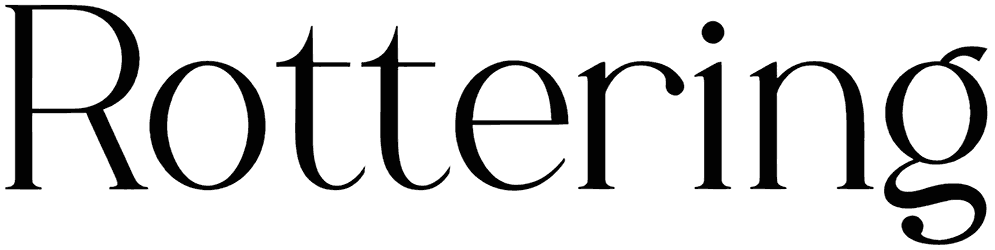
Rottering Font
Have you noticed that you can never say, “Okay, now I have gathered enough serif fonts, and I won’t be needing any more”? It’s a fact, but it’s not something to be worried about. You’ve got Rottering and all the rest of its typical families to download here.
If you’re willing to overlook the fact that only 0 and 1 are present in the numeric set, these ligatures will show you how to impress people with your interior design projects, fashion articles, etc.